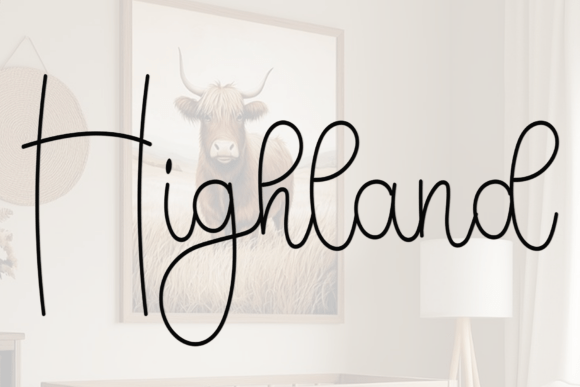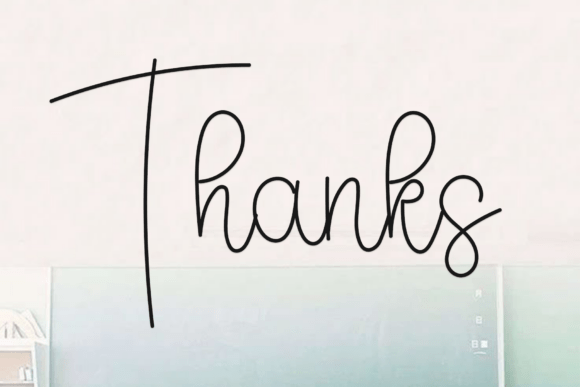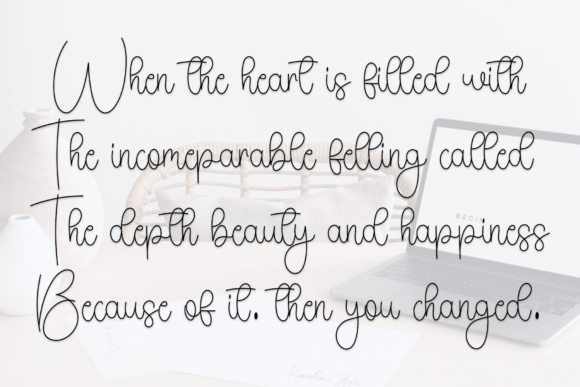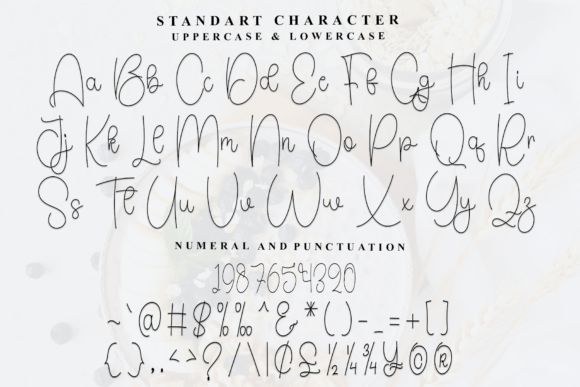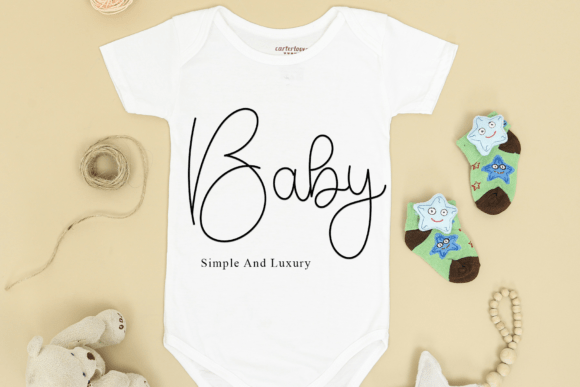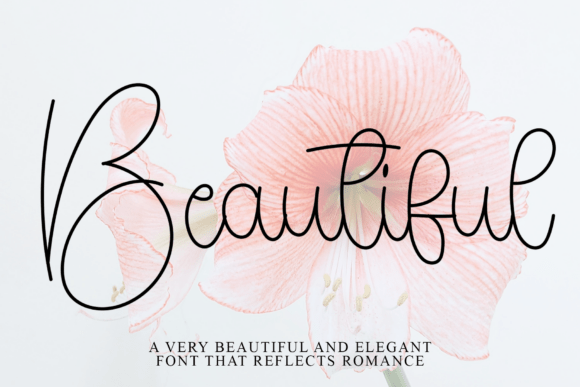
Discover the Elegance of Authentic Font: A Sleek and Minimalist Script Font
In the world of typography, a font can make all the difference in conveying a brand’s personality and aesthetic. For designers and crafters looking for a typeface that exudes professionalism and sophistication, Authentic Font is an excellent choice. This sleek and minimalist script font is designed to emphasize a unique and professional hand-lettered aesthetic, making it perfect for a variety of applications.
What Sets Authentic Font Apart
Authentic Font is characterized by its expansive, sweeping ascenders, which give the text a clean, signature-like quality. This distinctive feature sets it apart from other script fonts and makes it an ideal resource for minimalist lifestyle branding, architectural title blocks, professional watermarks, and sophisticated personal blog headers.
The font’s minimalist approach ensures that it remains versatile and adaptable, allowing designers to use it in various contexts without overpowering the surrounding content. Whether you’re looking to create a bold statement or a subtle impression, Authentic Font provides the perfect balance of elegance and legibility.
Key Features of Authentic Font
- Unique and Professional Aesthetic: Authentic Font boasts a distinctive hand-lettered look that is both modern and sophisticated.
- Expansive Ascenders: The font’s sweeping ascenders create a clean and signature-like quality, making it perfect for titles, headings, and signatures.
- Minimalist Design: The font’s minimalist approach ensures that it remains versatile and adaptable, making it suitable for a wide range of applications.
- High Legibility: Despite its elegant design, Authentic Font remains highly legible, even at smaller font sizes.
Use Cases for Authentic Font
Authentic Font is an incredibly versatile typeface that can be used in various contexts. Here are some ideal use cases for this font:
- Minimalist Lifestyle Branding: Authentic Font is perfect for creating sleek and sophisticated brand identities that convey a sense of elegance and refinement.
- Architectural Title Blocks: The font’s clean and signature-like quality makes it an excellent choice for architectural title blocks, adding a touch of professionalism to building plans and designs.
- Professional Watermarks: Authentic Font can be used to create subtle yet sophisticated watermarks that add a touch of elegance to images and documents.
- Sophisticated Personal Blog Headers: The font’s unique and professional aesthetic makes it perfect for creating eye-catching blog headers that reflect the author’s personality and style.
Tips for Using Authentic Font Effectively
To get the most out of Authentic Font, here are some tips for using it effectively:
- Pair it with a Sans-Serif Font: Pair Authentic Font with a clean sans-serif font to create a striking contrast that adds visual interest to your design.
- Experiment with Font Sizes: Don’t be afraid to experiment with different font sizes to create visual hierarchy and emphasize key elements in your design.
- Use it for Headings and Titles: Authentic Font is perfect for headings and titles, so use it to create bold statements that grab attention.
In conclusion, Authentic Font is a sleek and minimalist script font that offers a unique and professional aesthetic. Its expansive ascenders, clean design, and high legibility make it an ideal resource for designers and crafters looking to create sophisticated and elegant designs. Whether you’re working on a branding project, architectural design, or personal blog, Authentic Font is an excellent choice that is sure to impress.